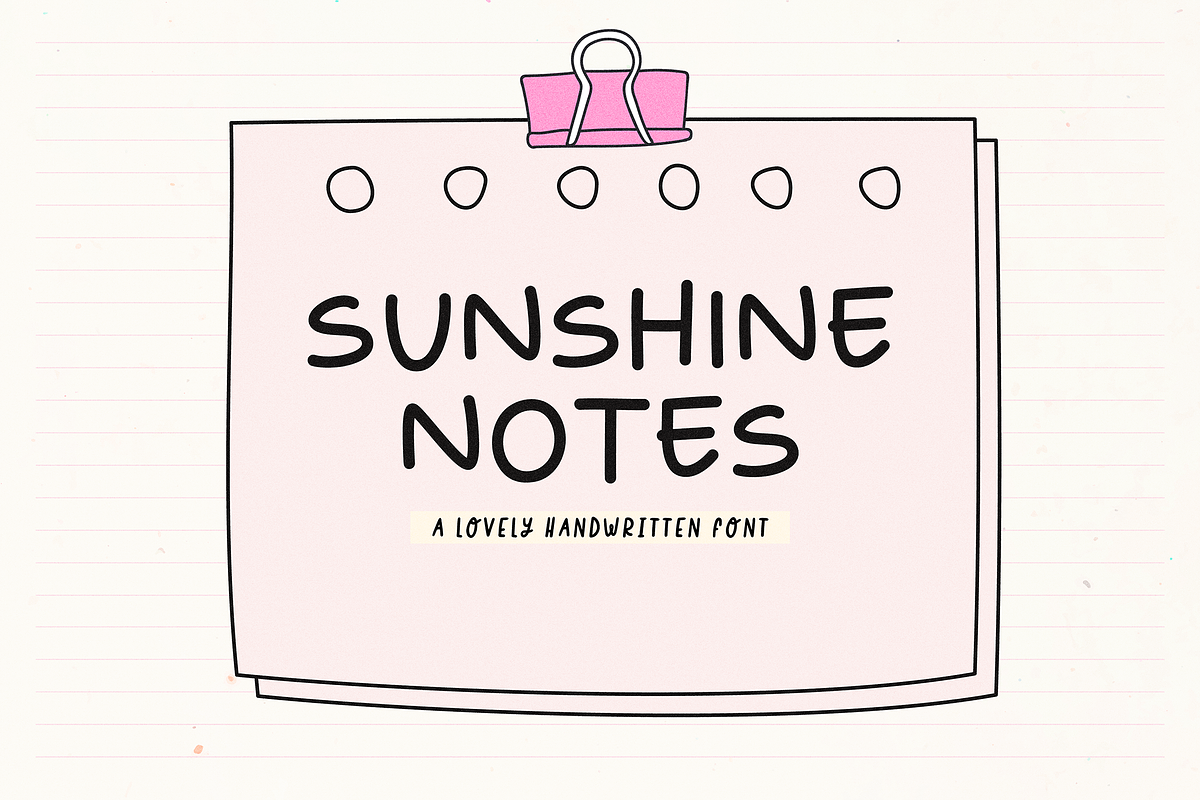
SUNSHINE NOTES Font Free Download is a playful and cheerful handwritten typeface that brings a warm and welcoming vibe to any design. With its casual strokes, rounded edges, and friendly flow, this font is perfect for greeting cards, social media posts, children's designs, invitations, and any project that needs a touch of joy and positivity.
Sunshine Notes captures the feel of a handwritten note with its carefree charm, making it ideal for creating a personal, approachable atmosphere in your designs. Whether you're working on personal projects or playful branding, this font adds personality and warmth.
Brighten up your designs with the joyful spirit of Sunshine Notes!